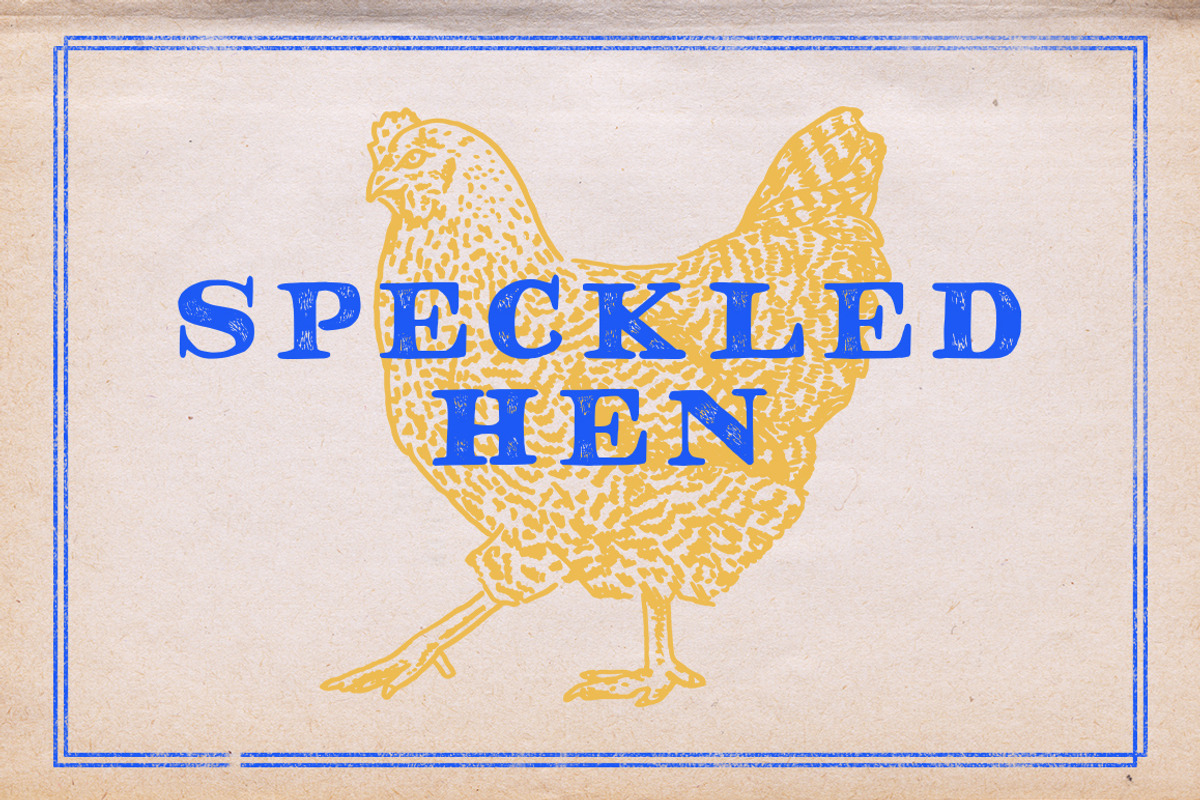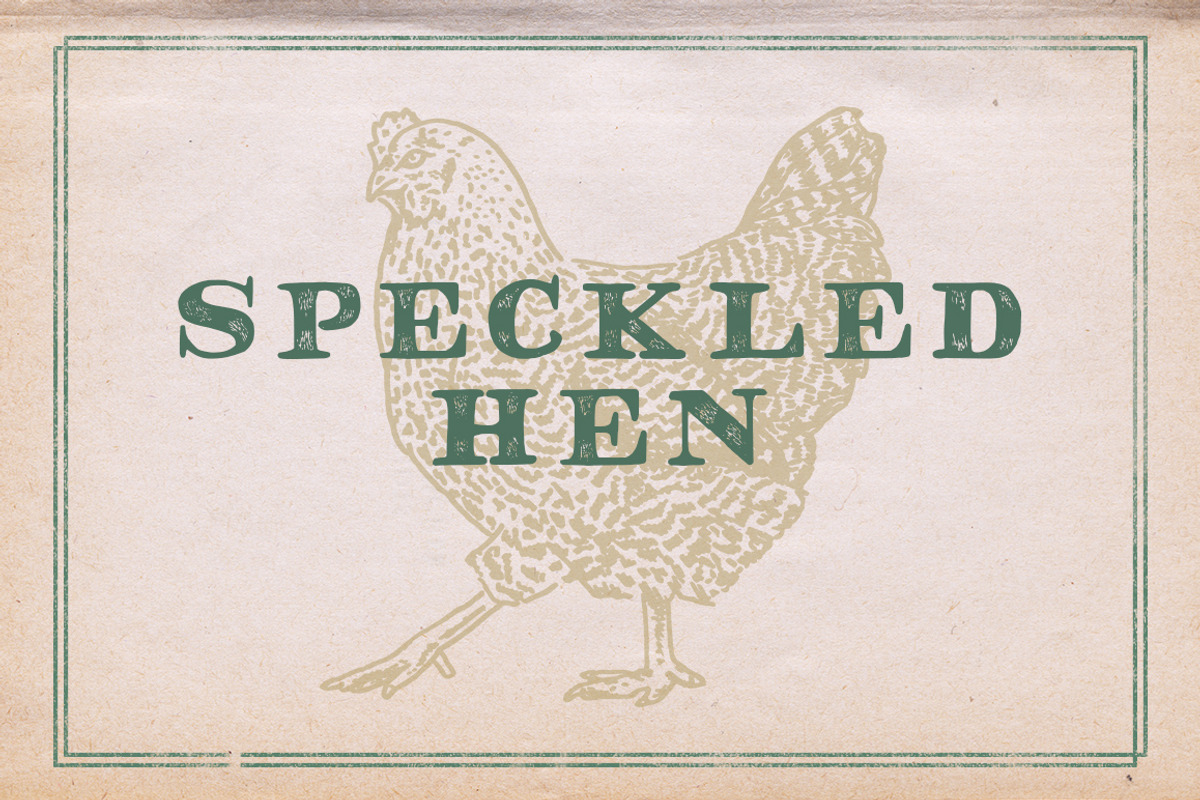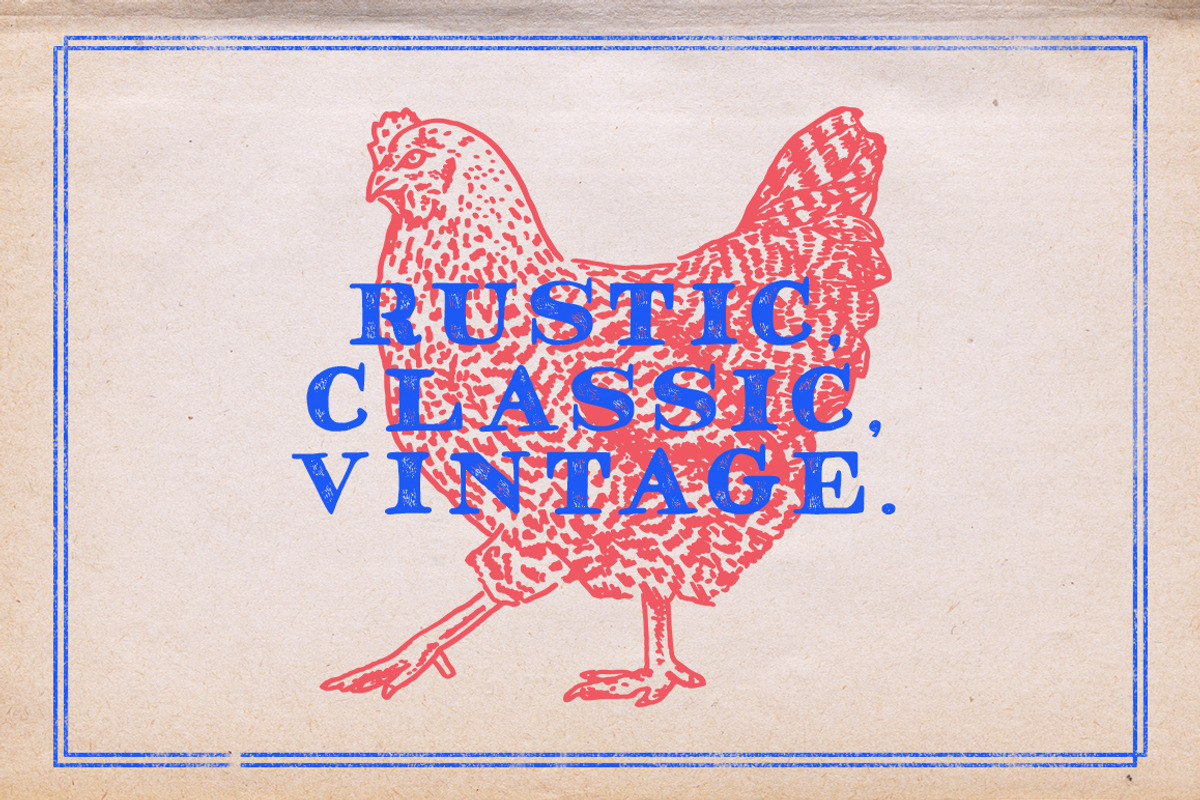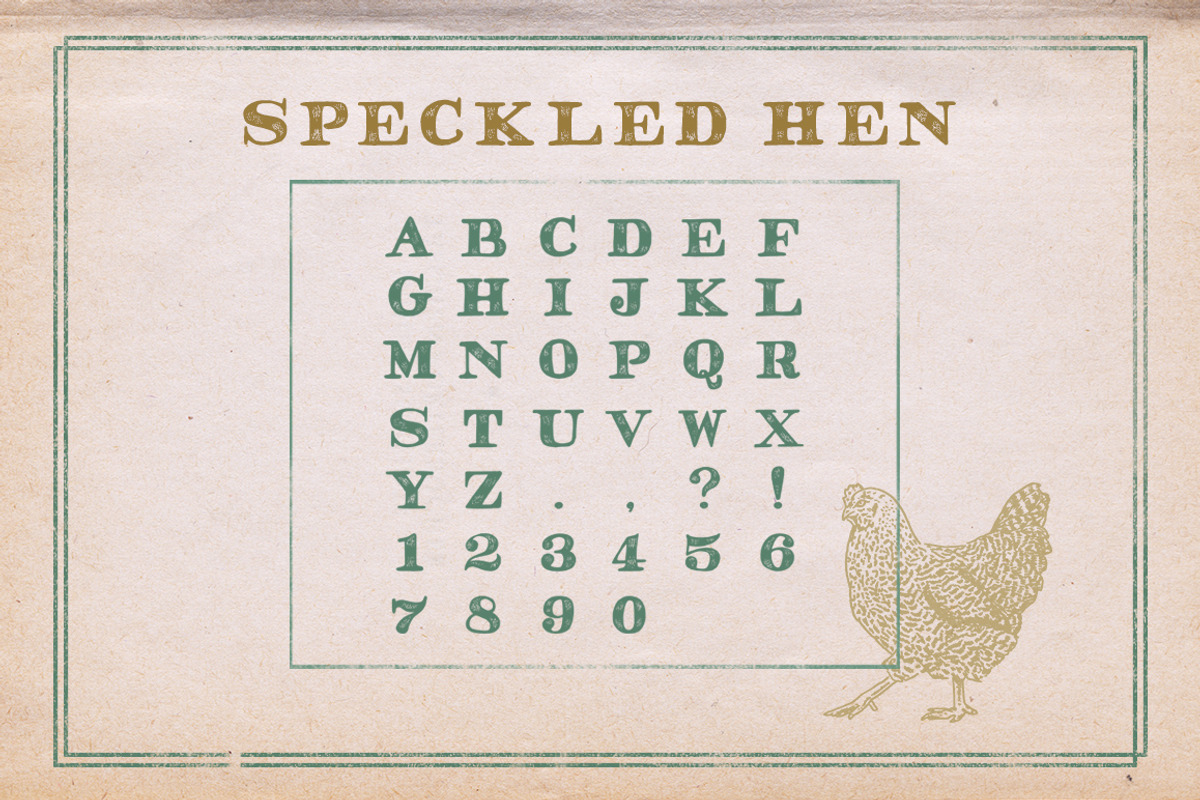
Speckled Hen Font
Speckled Hen Font by Lettering Supply Co. is a font selected for branding, posters, packaging, typography.
Why Speckled Hen Font is worth a look
Speckled Hen Font by Lettering Supply Co. fits naturally into Branding, posters, packaging, typography.